Looking for 3D source font
Hello fans of ancient t-shirt prints,
I used http://www.identifont.com/ to detect Figaro as the font for the text in the circle (the lower-case g is especially remarkable), but was not successful to find the font of the three initials GFE in the center. http://new.myfonts.com/WhatTheFont/ does not like outlined / shadowed / 3d-ified fonts like this.
This is a T-Shirt print from the late seventies and I would like to recreate the design today for a 30 years anniversary coming up. Any idea for the center font?
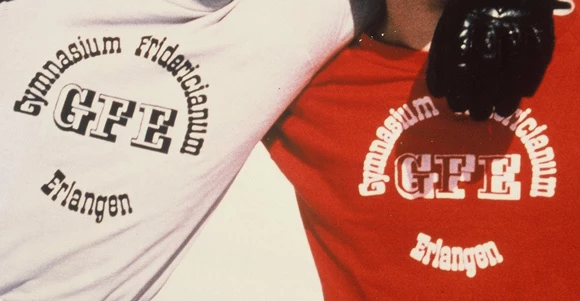
I don't think you're dealing with "3D" typefaces here but letters to which graphic effects have been added.
Also, the E on the white shirt is totally different from the E on the red one.  Just look at the serif on the bottom, extending to the left: it curves on the white shirt but it's straight on the red one.  Same goes for the F; etc.